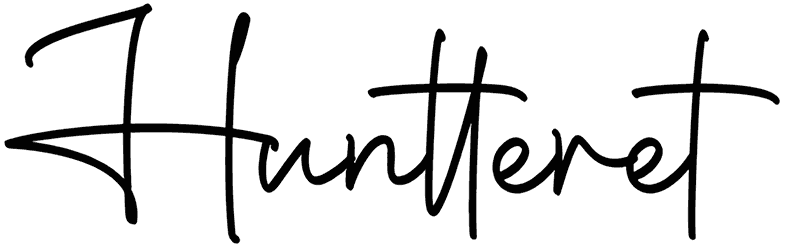
Huntteret Font
Have you even had the true script font experience if you never got to try one with an average handwritten style? The design of Huntteret font gives you a set of jumble & humble semi-bold letters with an approachable vibe, which creates an easy-going environment.
You can now use the complete character set of the Huntteret font to make movie titles, edit clips, bullet journals, or party flyers, and have a continuous style on whatever you write.
This charming font will turn any creative idea into a standout.